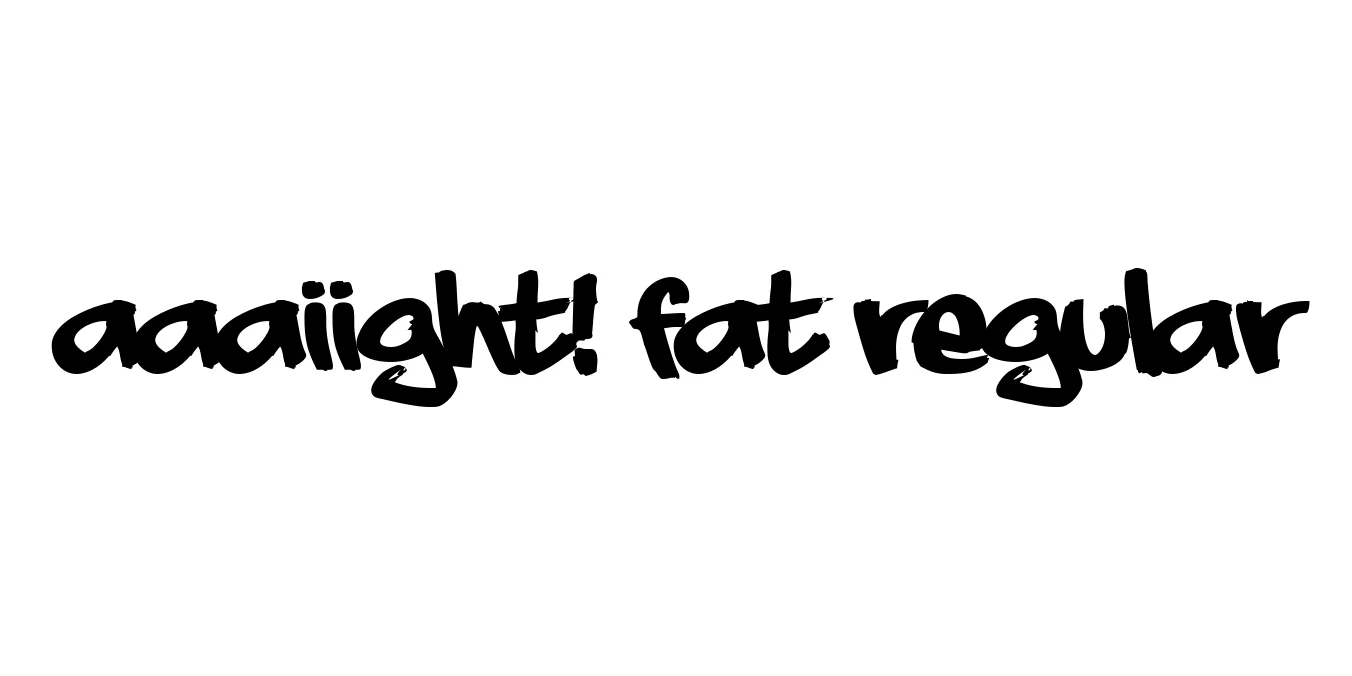
aaaiight! fat Regular
Designed by Ray Larabie
| Font Name | aaaiight! fat |
| Category | Display / Graffiti |
| Designer | Ray Larabie |
aaaiight! fat Regular is a distinctive display typeface created by the prolific designer Ray Larabie under his Typodermic Fonts label. Originally released in the early 2000s, this font captures the essence of street culture and informal hand-lettering, featuring chunky, rounded strokes that evoke a sense of playfulness and urban energy.
The design is characterized by its heavy weight and slightly irregular proportions, making it ideal for high-impact visual communication. It has remained a popular choice for designers looking to inject a graffiti-inspired or casual comic aesthetic into their projects without sacrificing readability in large formats.
aaaiight! fat Regular Best Uses
Bold headlines that need a street-art or urban feel.
T-shirt designs and streetwear branding.
Casual or urban-themed video game interfaces.
Eye-catching thumbnails and story graphics.